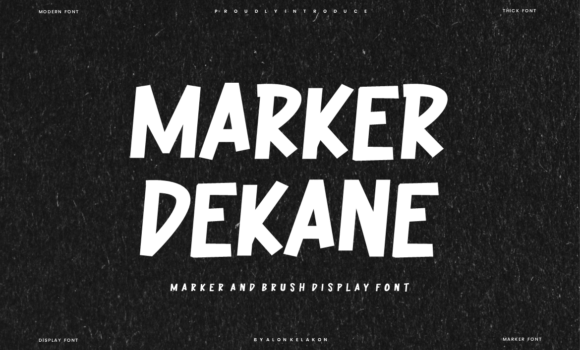
Marker Dekane Font – Free Download Introduction to Marker Dekane Font Marker Dekane is a sweet and friendly handwritten font. 📸 Preview Gallery 5 images 📌 Product Name Marker Dekane Font 👤 Author alonkelakon 📂 Category Explore ⬇️ Download Marker